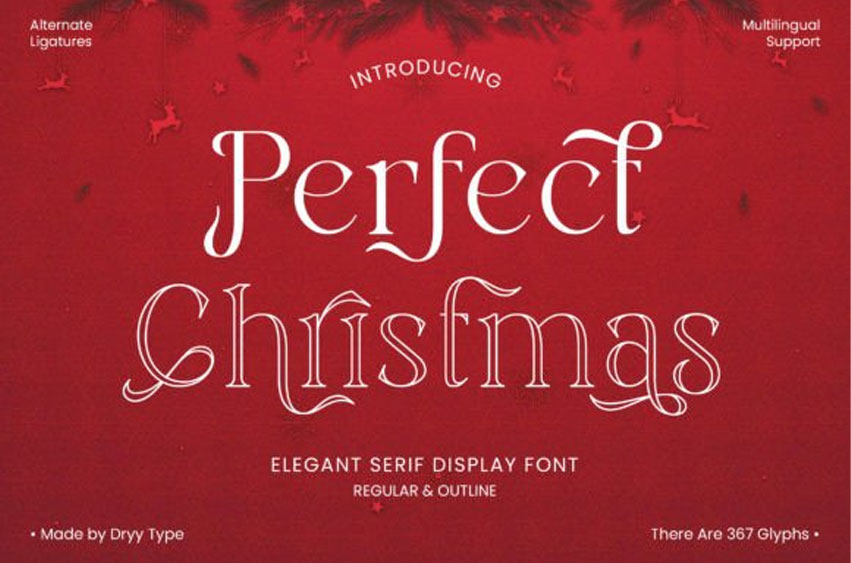
Perfect Christmas Font
Perfect Christmas Font is an elegant display-type font that is Christmas-themed.
This font is incredibly versatile and fits well with a variety of designs, elevating them to the highest level. Add this font to your favorite creative ideas and see how it turns out!